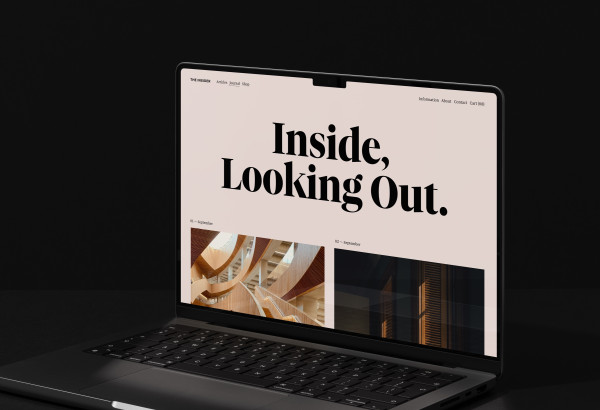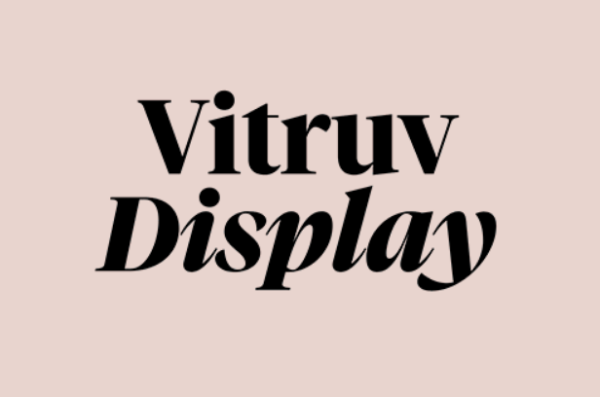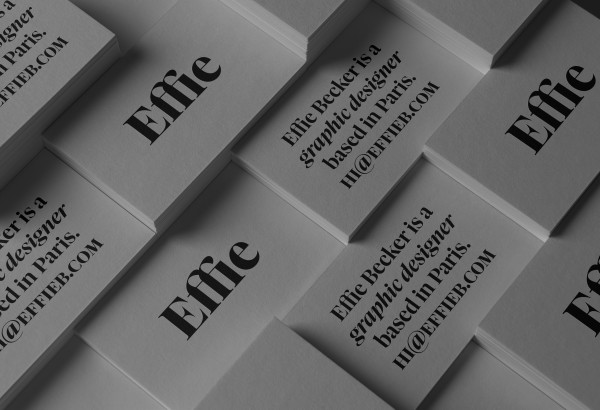
Vitruv Display Font
Vitruv Display Font – The pursuit of perfection. Named after the ancient architect Vitruvius, and namesake of Leonardo da Vinci’s famous Vitruvian Man drawing, the typeface seeks to unite ideal proportions. It combines Garamond DNA with a high x-height to create a modern interpretation of french renaissance antiquas and the timeless masterpieces of the 15th and 16th centuries. It is available in two optical text sizes (display and text) with 12 weights plus matching italics.